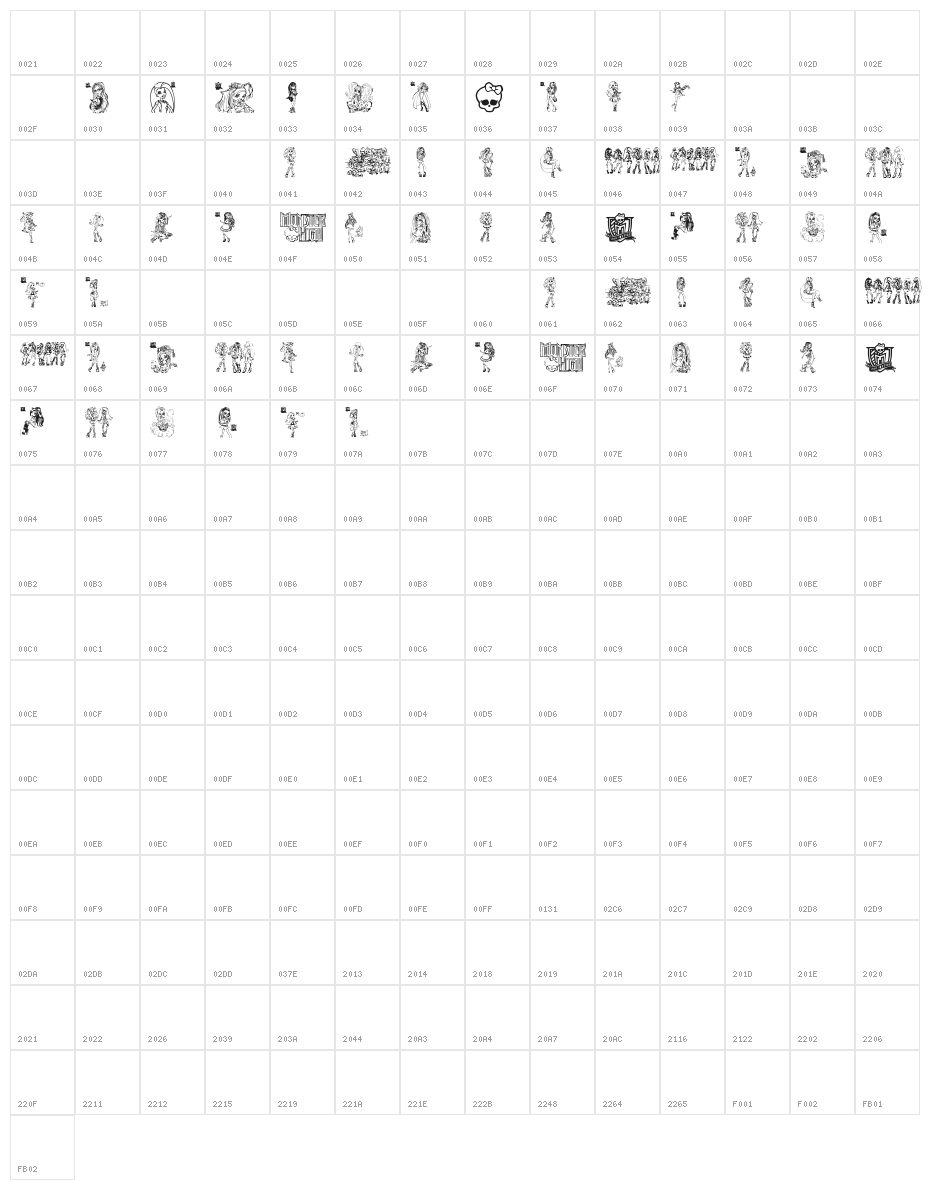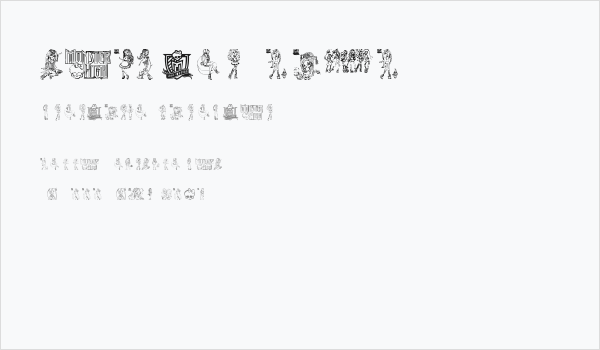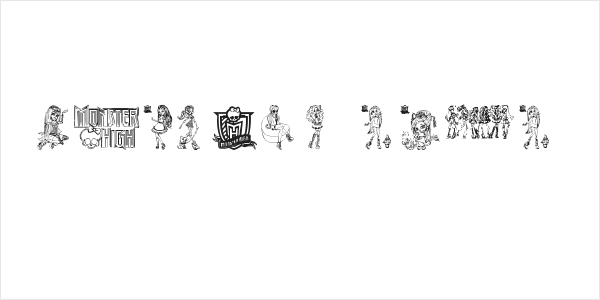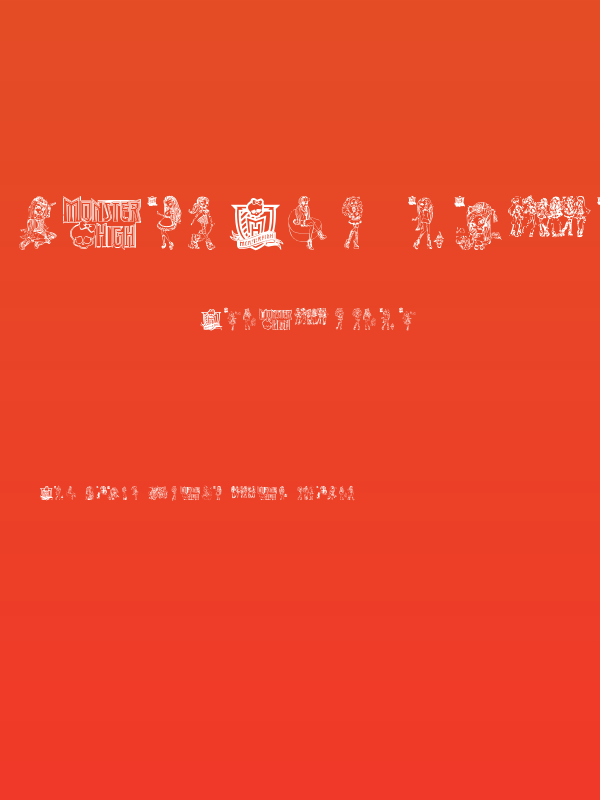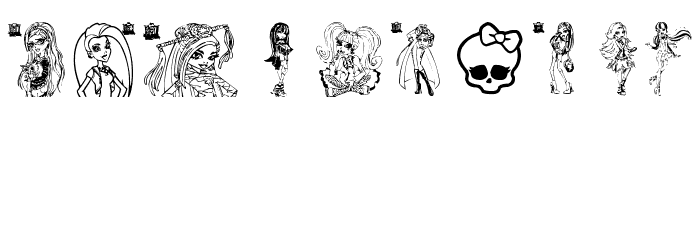
Monster High Font
Monster High Description
This is a highly decorative and illustrative font featuring detailed cartoon-style character drawings and logos, inspired by a popular monster-themed franchise. The glyphs are not standard letters but rather intricate images of characters, logos, and symbols, making it more of a pictorial or dingbat font.
| Overall Style | Decorative, Playful, Thematic |
| Use Case | Decorative elements, Themed graphics, Not suitable for body text or headlines. |
| Proposed Projects | Party invitations, themed posters, children's event materials, fan art, scrapbooking. |